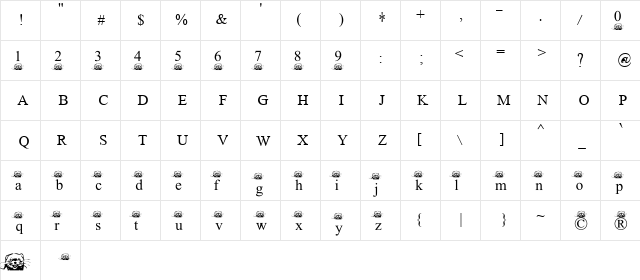
FerretsRTopsLowercase Regular Font Preview
FerretsRTopsLowercase Regular
Design Context for FerretsRTopsLowercase Typeface
FerretsRTopsLowercase takes a measured approach to typography — its balanced proportions and neutral character make it a reliable workhorse for both digital and print work.